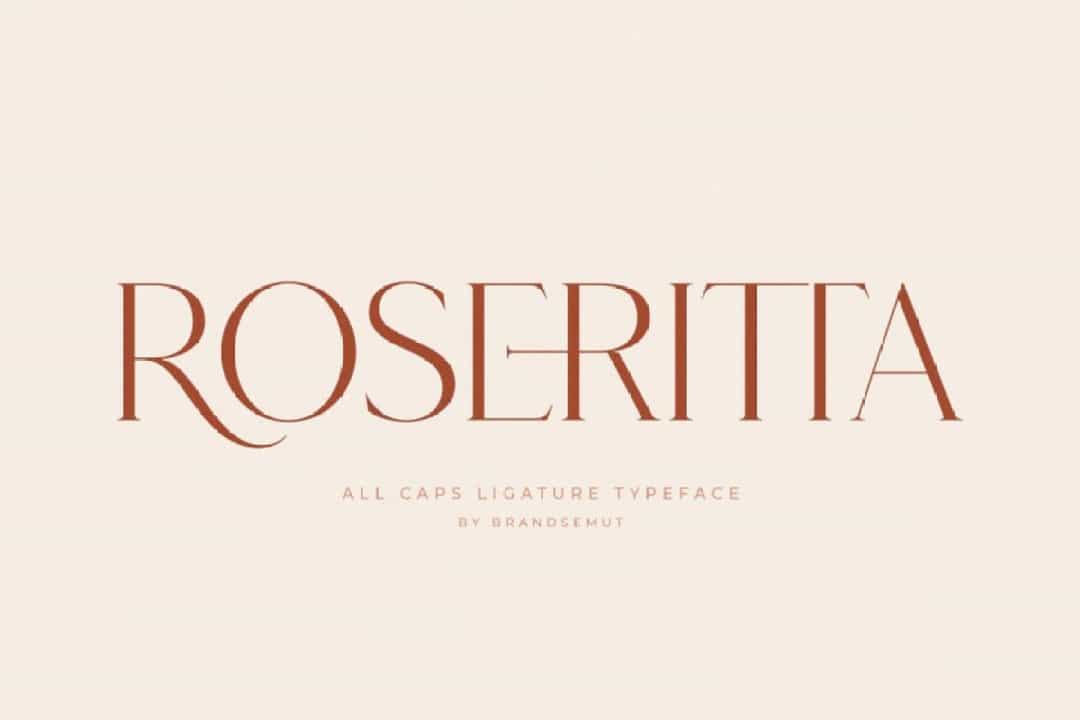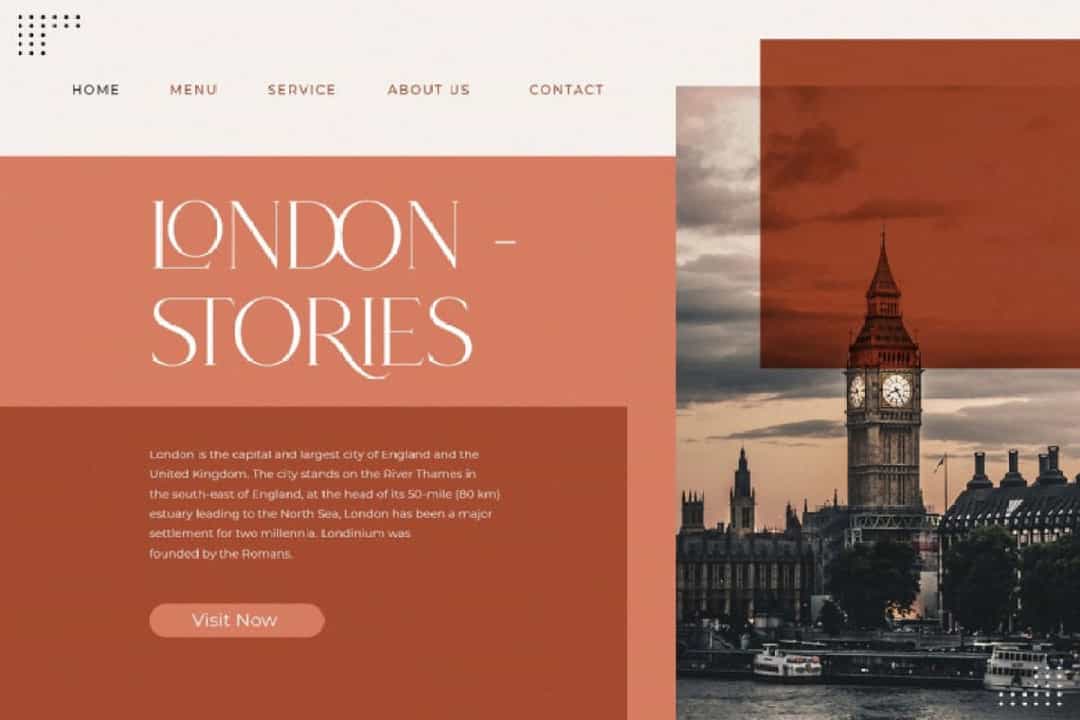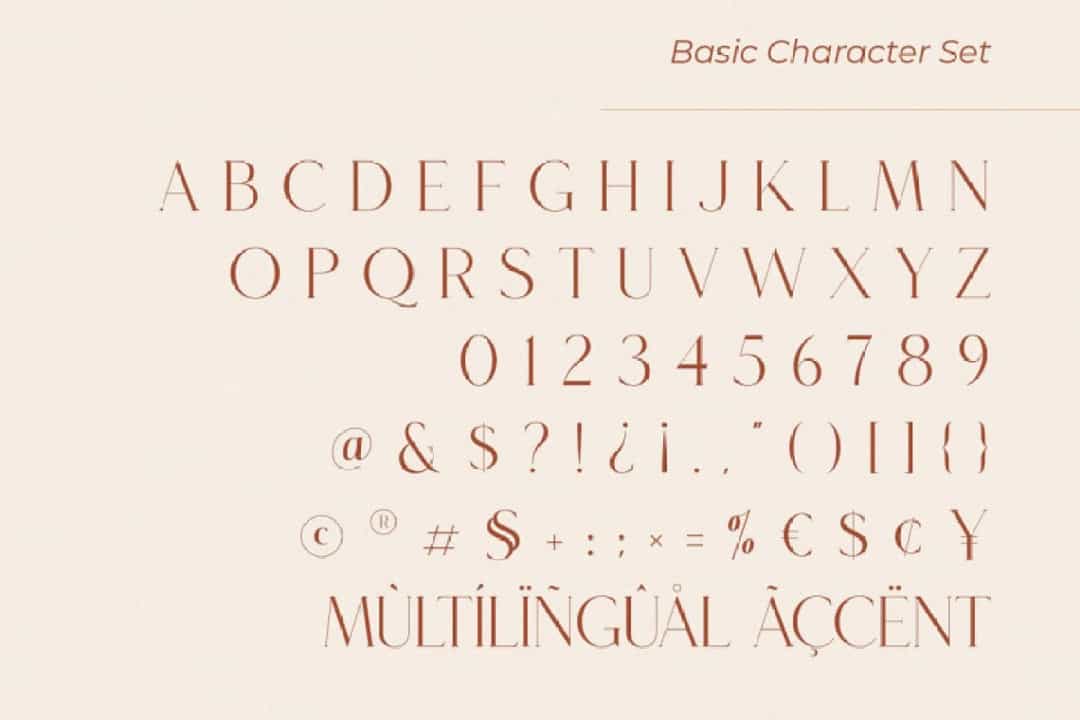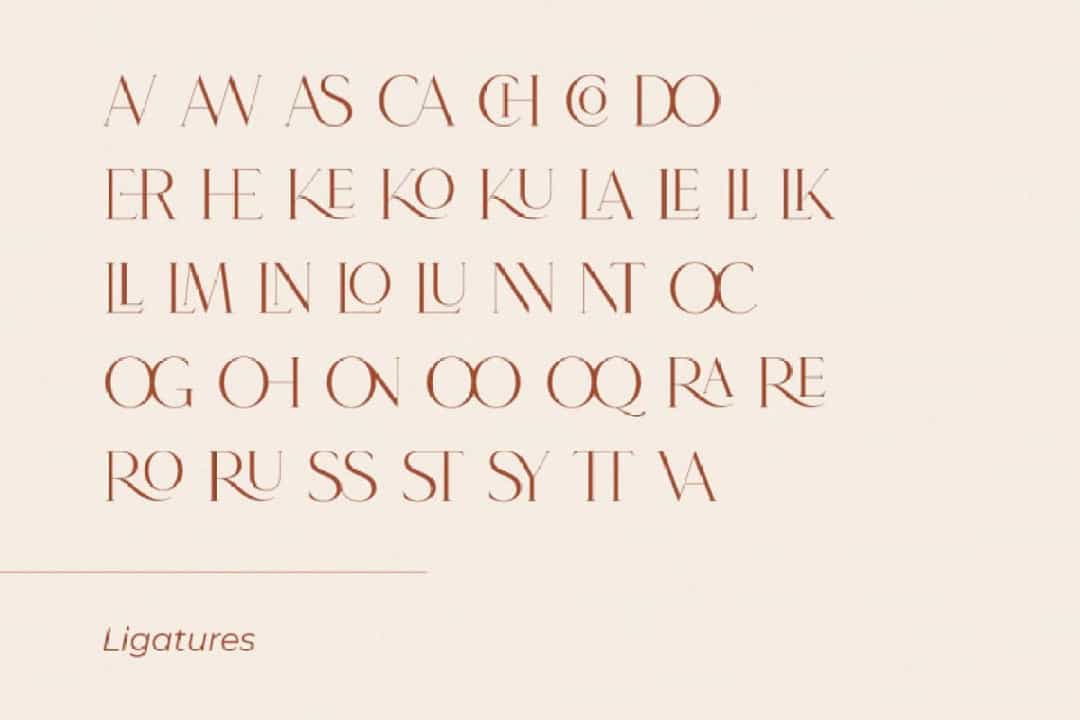
Roseritta is a wonderful elegant serif font. This is a modern typeface that has lots of retro feel but still appropriate for today’s use in logos, magazines social media, etc. Get it and use it in your next project! If you are looking for some elegance, modern, stylish, classy, chic, and contemporary look to your designs here is the font that you need!